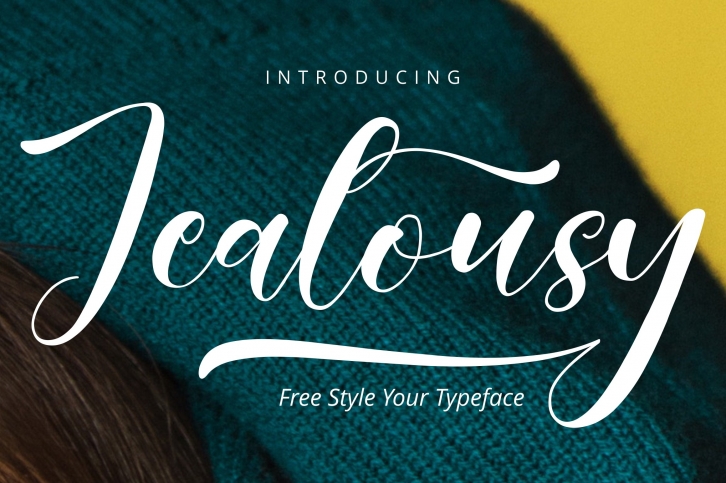
When you don’t want to do something but you’re still jealous!
Jealousy is a lovely, modern handwritten font style, perfect for any design & craft projects! Ideal for flyer, logotype, header, signage, quotes, home decor, wedding invites, blog header, branding, t-shirts, posters & etc!